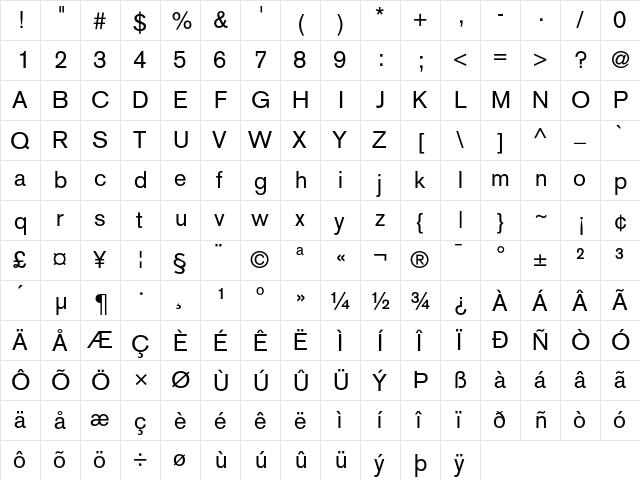
AkzidenzGrotesk Regular Font Preview
AkzidenzGrotesk Regular
Design Context for AkzidenzGrotesk Typeface
AkzidenzGrotesk has the quiet confidence of well-executed sans-serif typography: versatile, unobtrusive, and dependable at any size.
Font Pairing: Works well alongside a characterful serif or display font that can carry the expressive load while AkzidenzGrotesk handles the functional copy.
Pro Tip: Use AkzidenzGrotesk for UI labels, navigation, and short-form body copy where clean legibility is the priority.